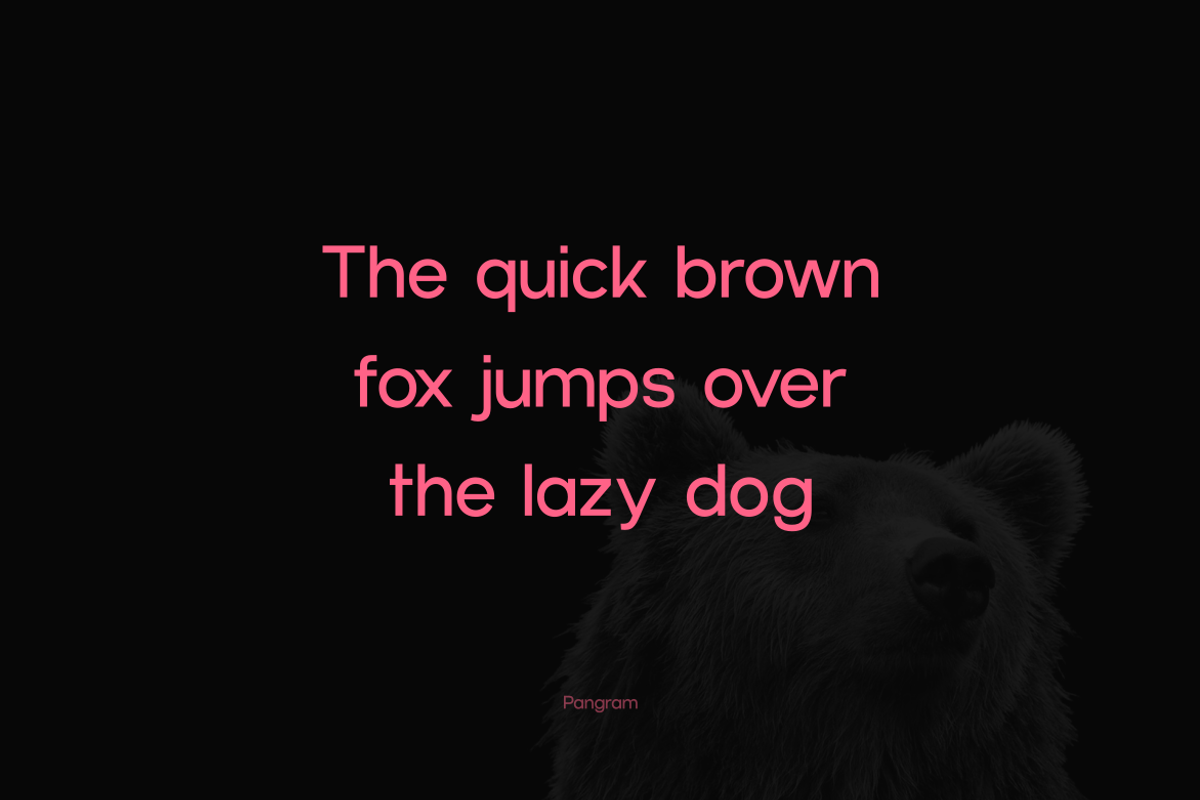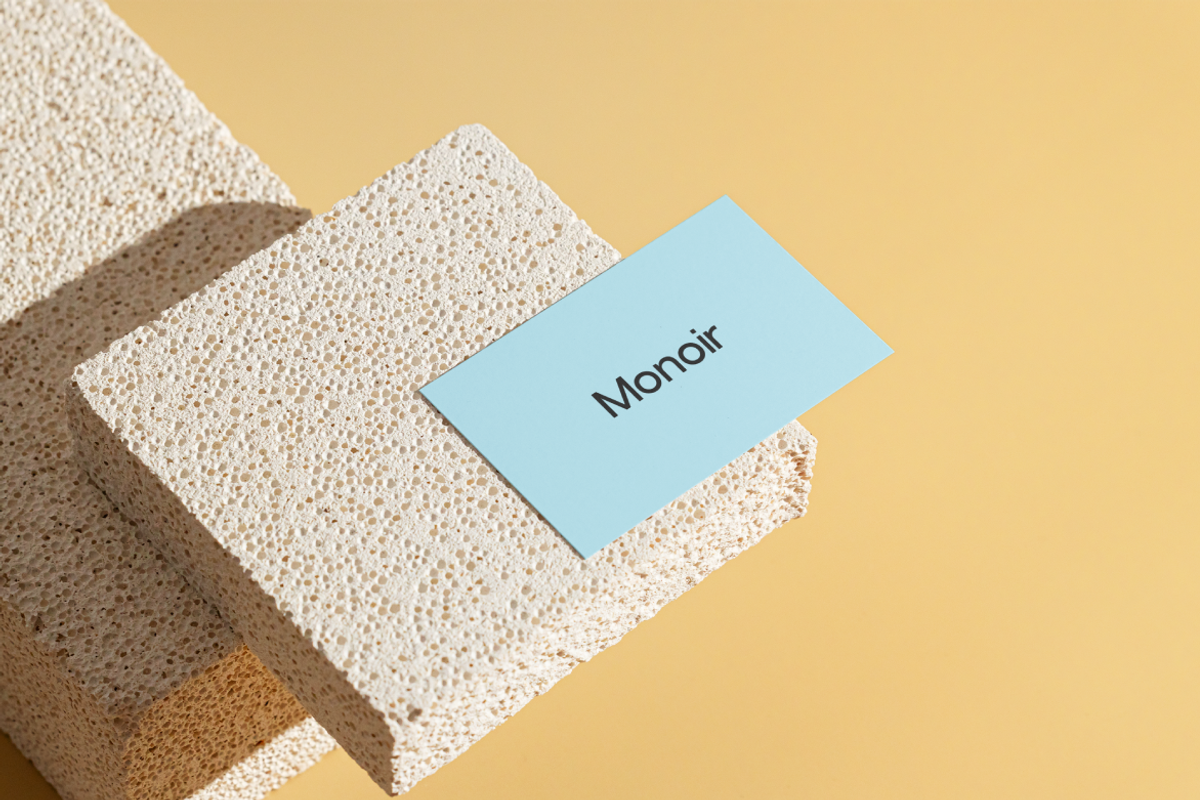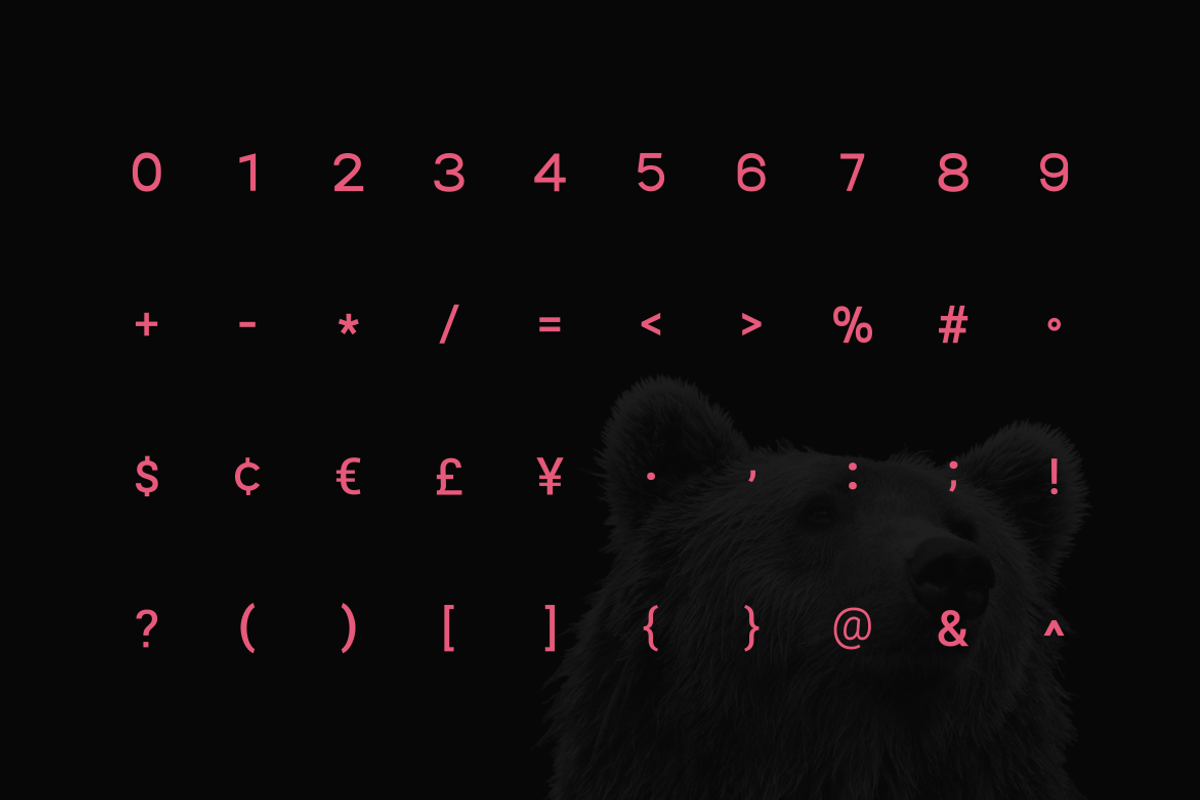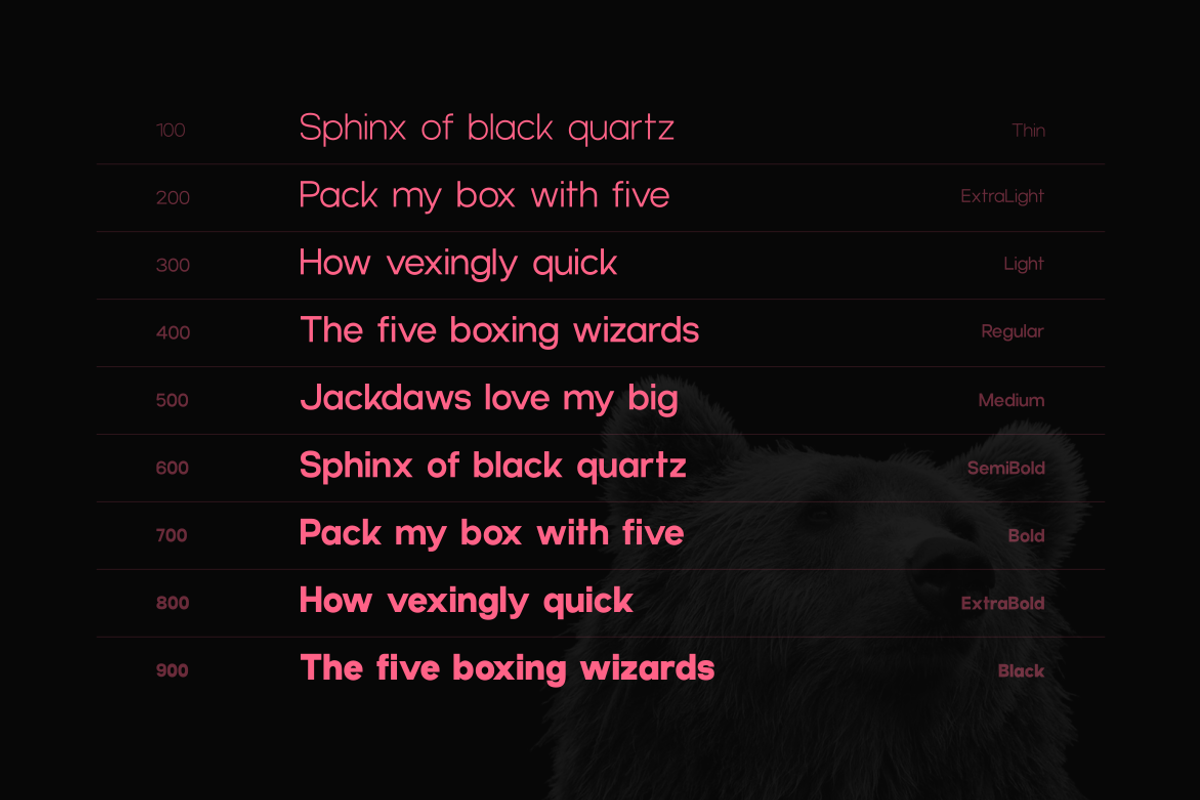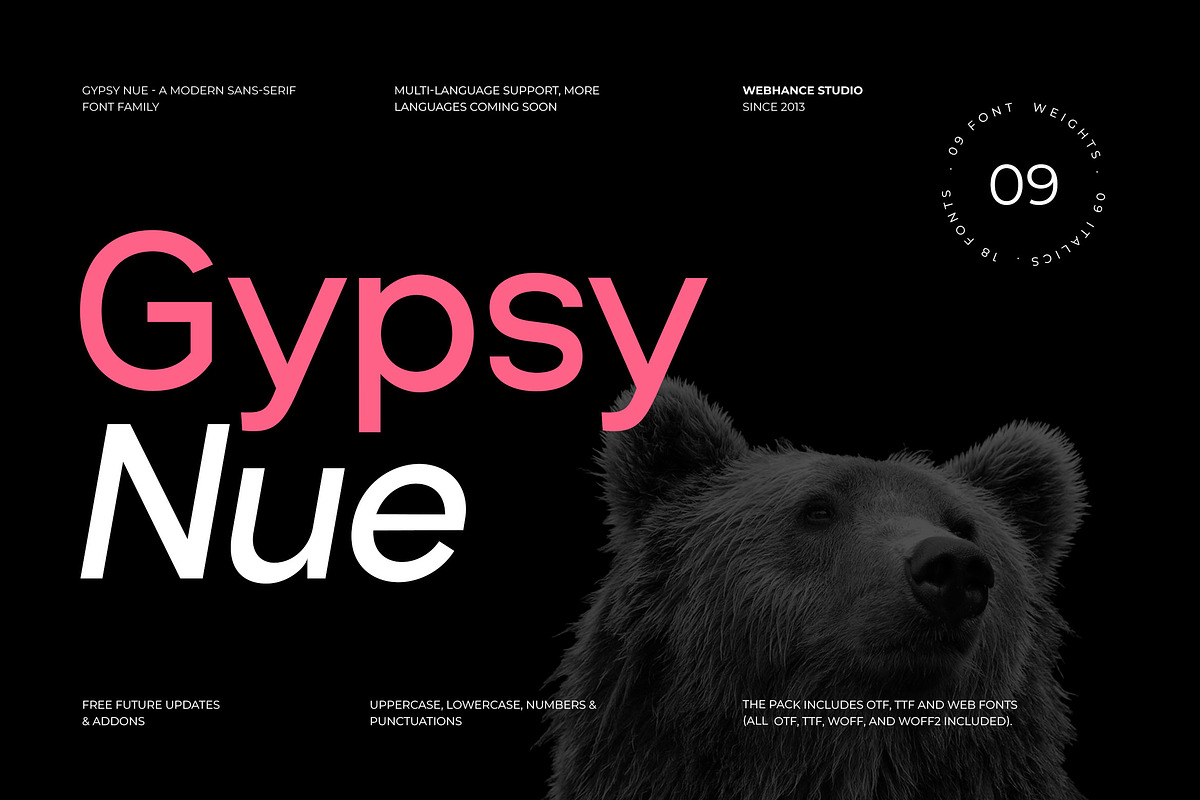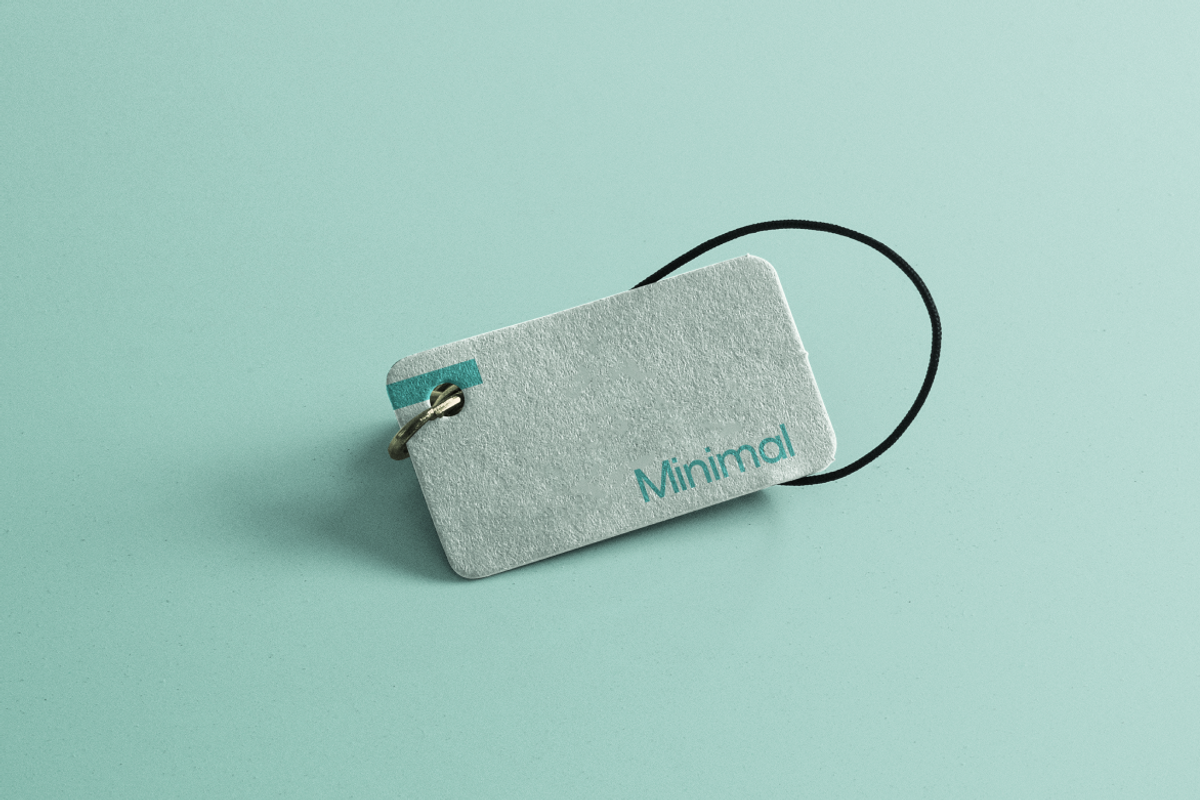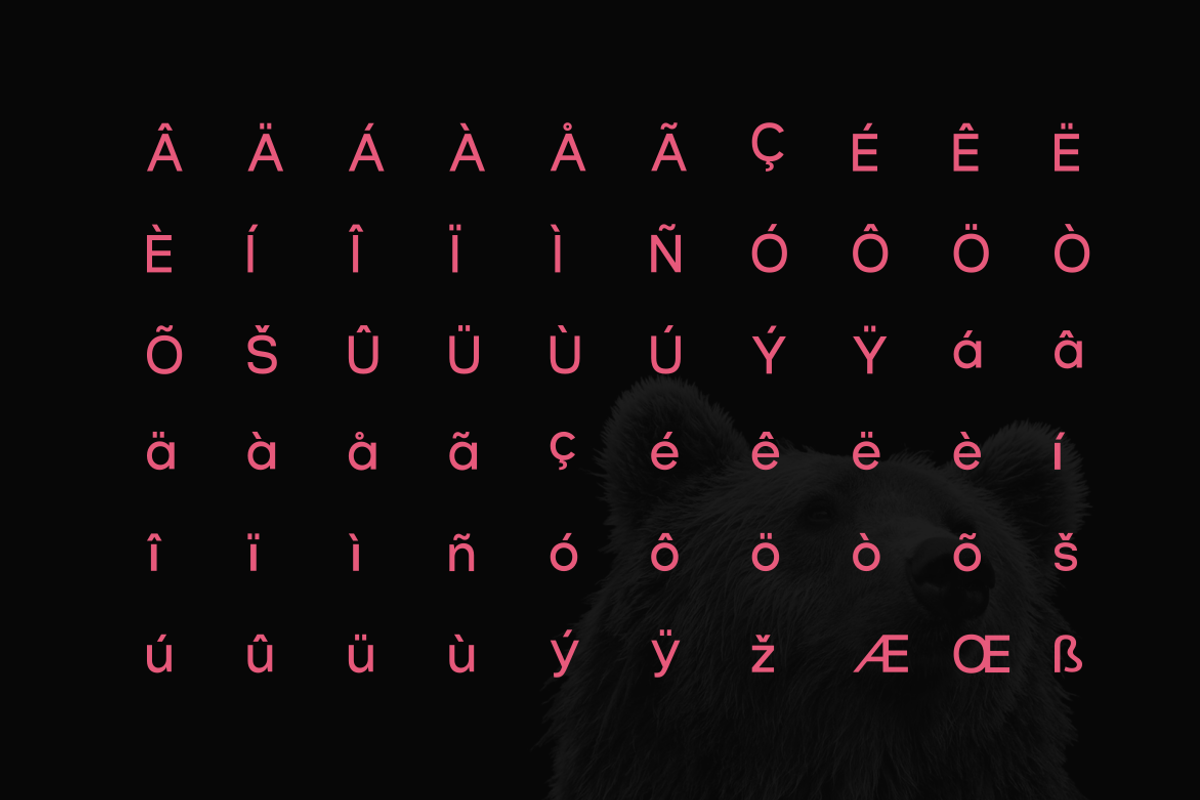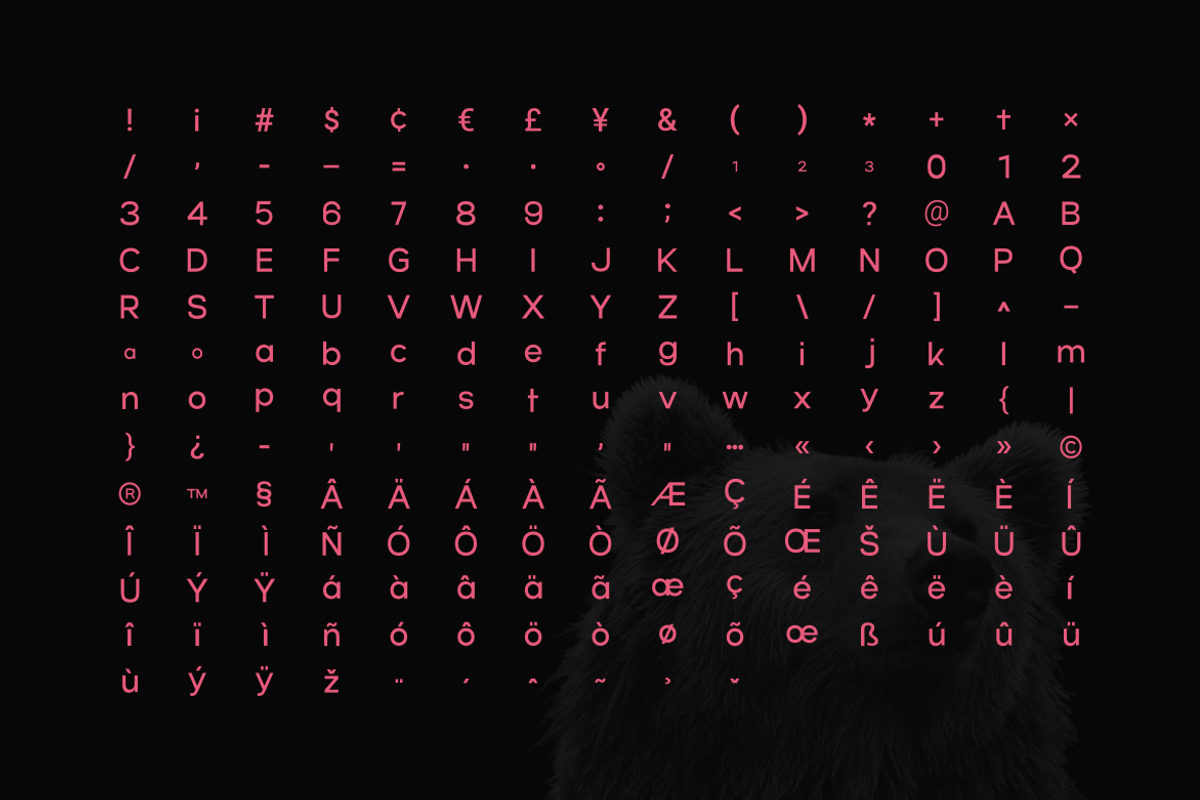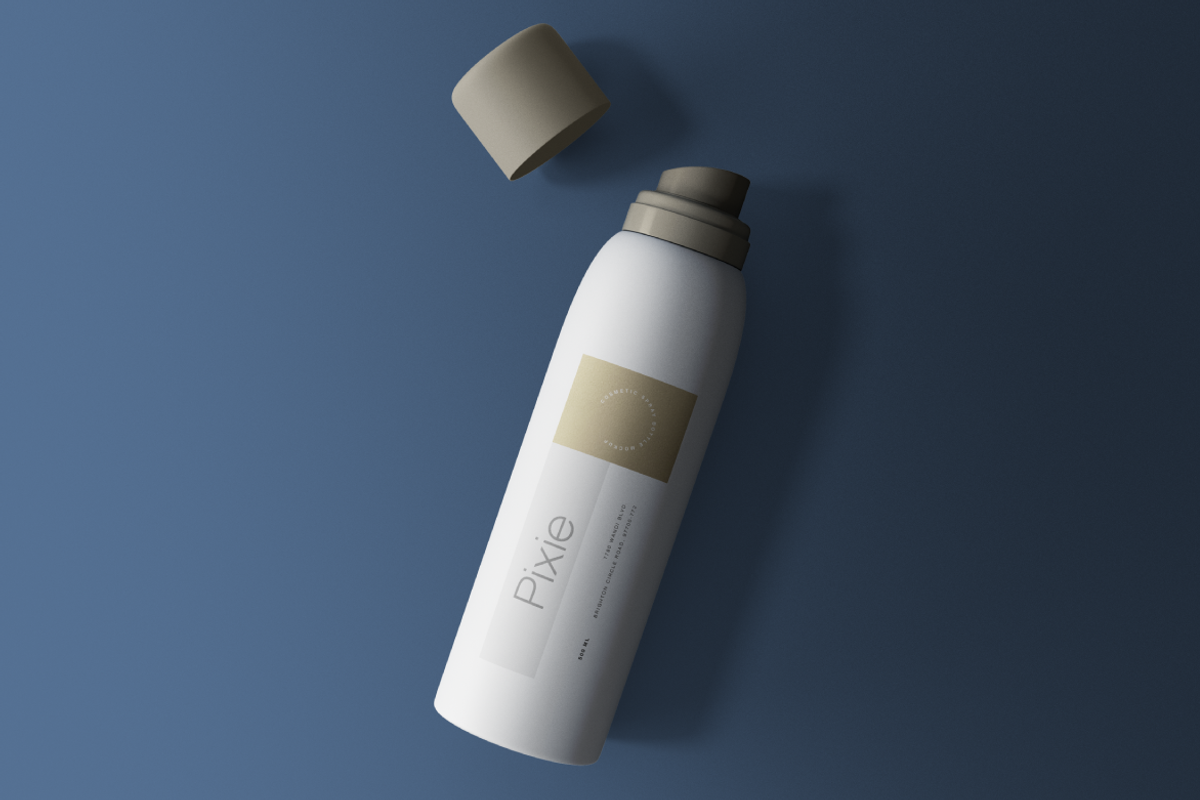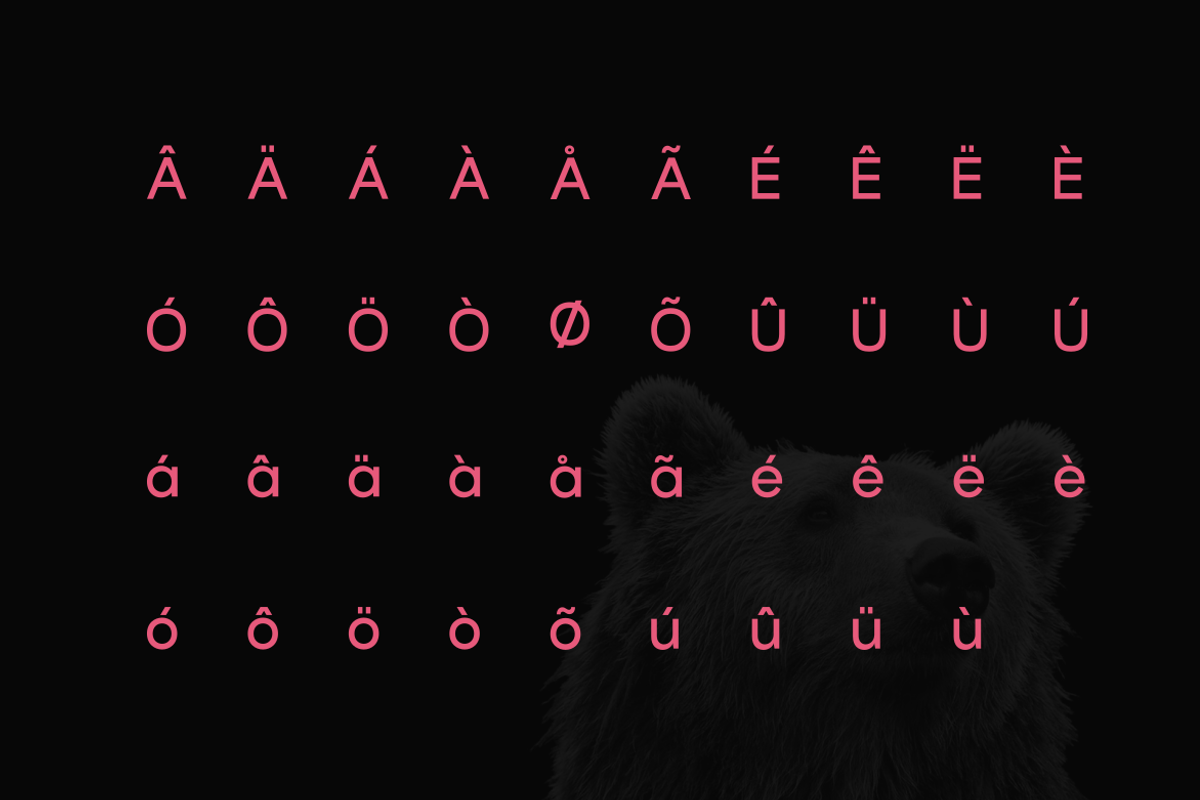
Gypsy Nue
Introducing Gypsy Nue, a sleek and modern sans-serif font family designed for clarity, harmony, and precision. Its clean, minimalist aesthetic makes it versatile for a wide range of creative projects. This family offers 9 thoughtfully crafted weights, from Thin to Heavy, each paired with matching italics for a total of 18 fonts. Every weight is designed with consistent shapes and spacing, ensuring effortless use across different layouts and applications. Gypsy Nue is perfect for branding, logo creation, websites, posters, Instagram content, social media graphics, video text, infographics, YouTube thumbnails, and more. Each style is optimized for both print and digital platforms, delivering sharp readability and a cohesive look everywhere. Specification Multilingual Font Uppercase letters Lowercase letters 09 Weights 09 Italics 200+ Glyphs 18 Fonts Included Numbers Punctuations Free Updates and Future Feature additions